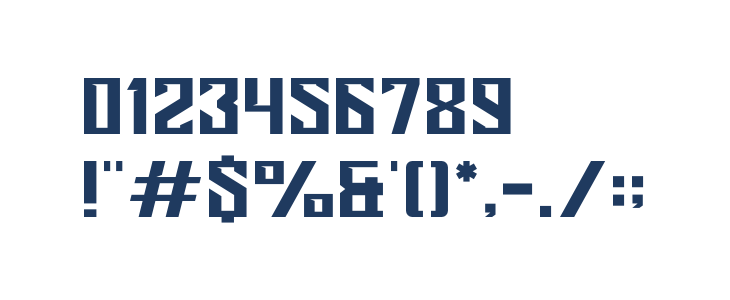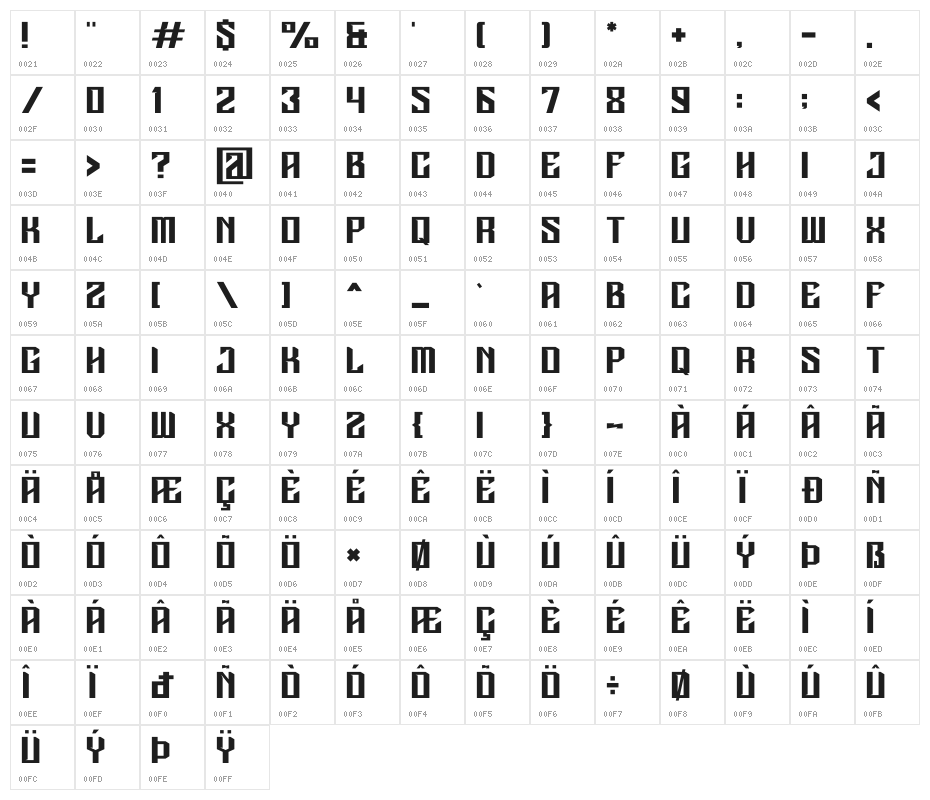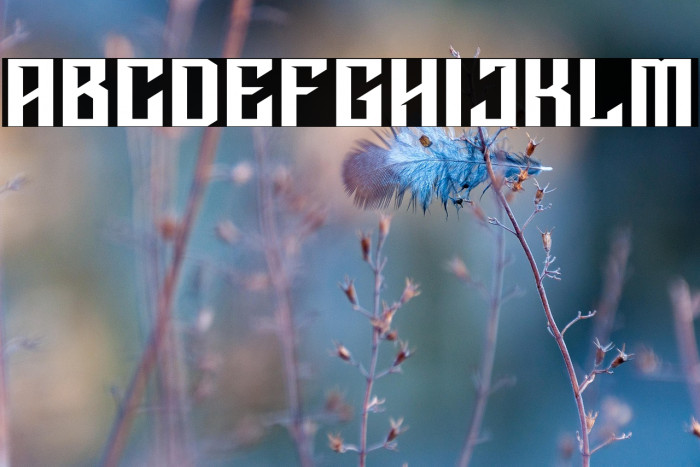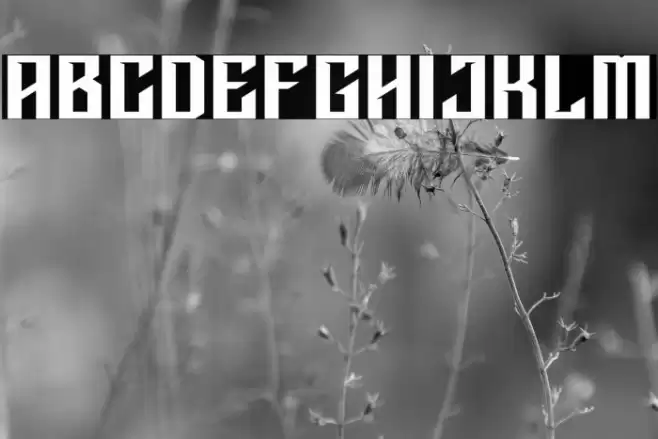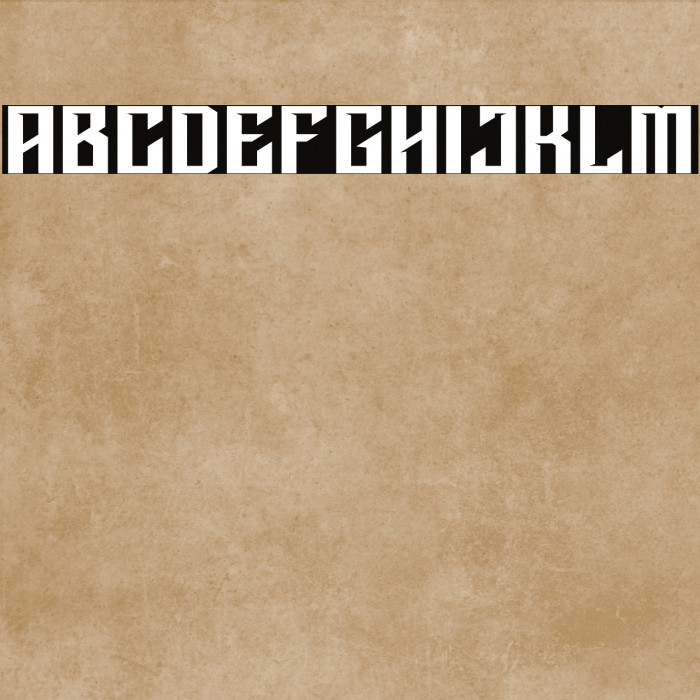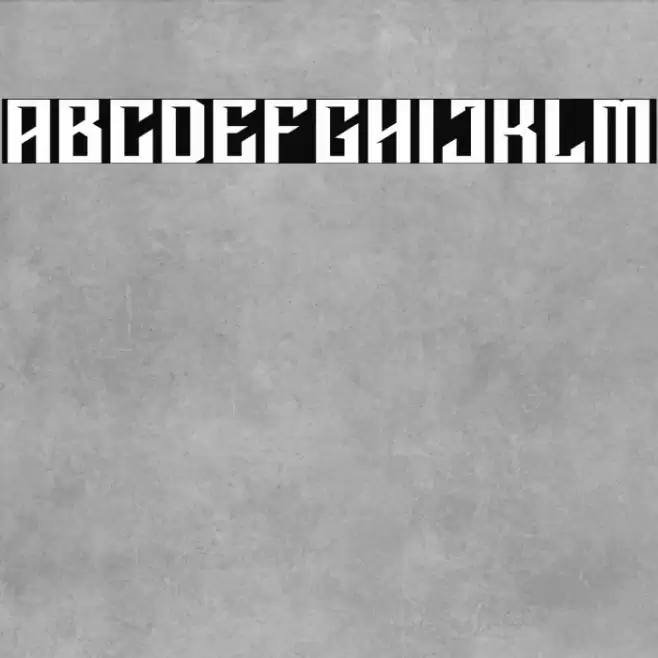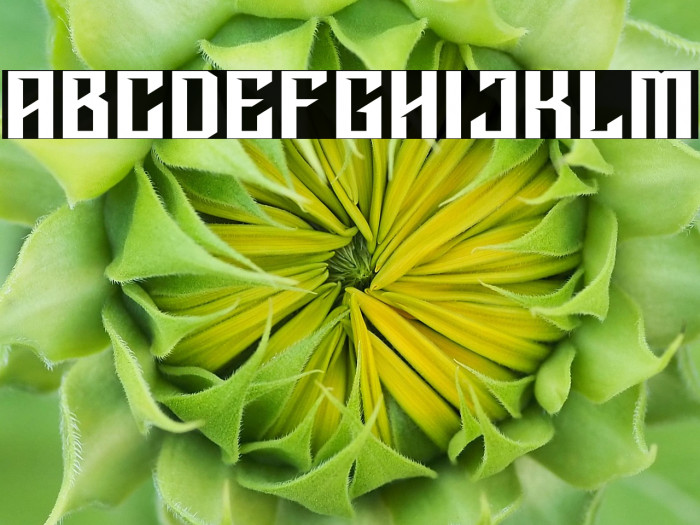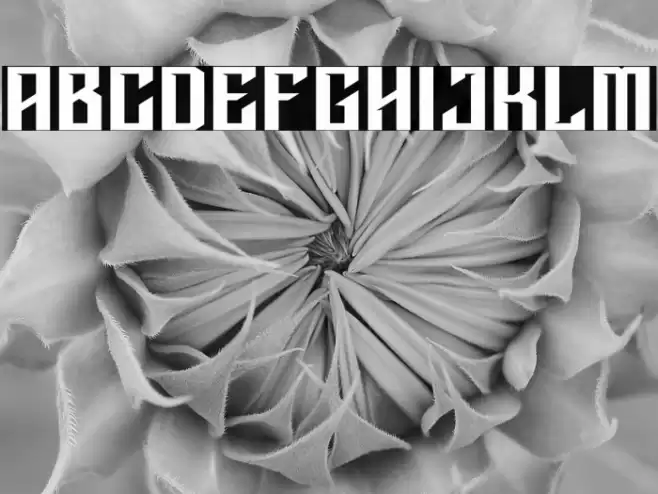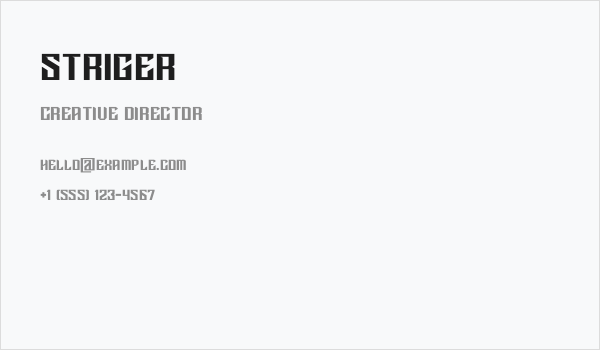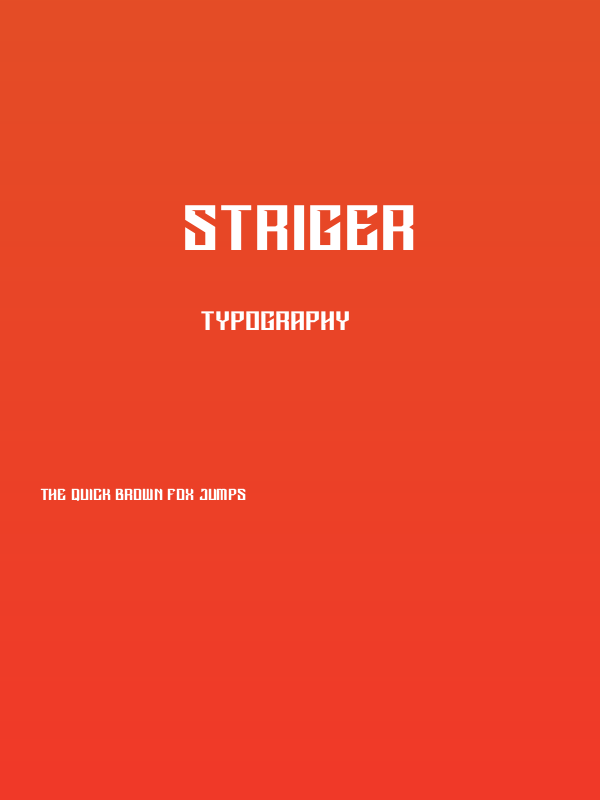
STRIGER Font
STRIGER Description
This font features a bold and geometric design with sharp angles and a strong presence. The characters are constructed with a uniform thickness, creating a cohesive and impactful look. The uppercase letters are particularly striking, with a blocky and angular style that commands attention. The lowercase letters maintain the same boldness, ensuring consistency across different text cases. Numbers and special characters are designed to match the overall aesthetic, making this font suitable for a variety of uses where a strong and modern appearance is desired.
| Proposed Projects | Ideal for branding, posters, headlines, and any project requiring a bold, modern look. |